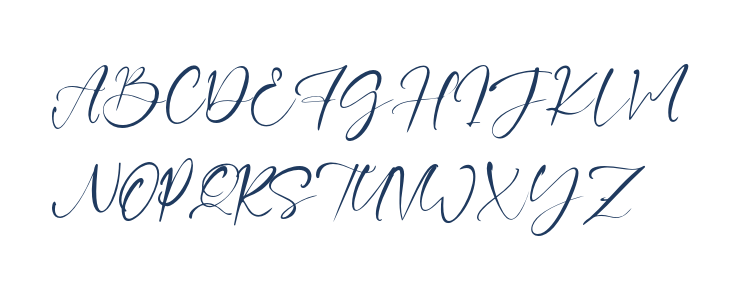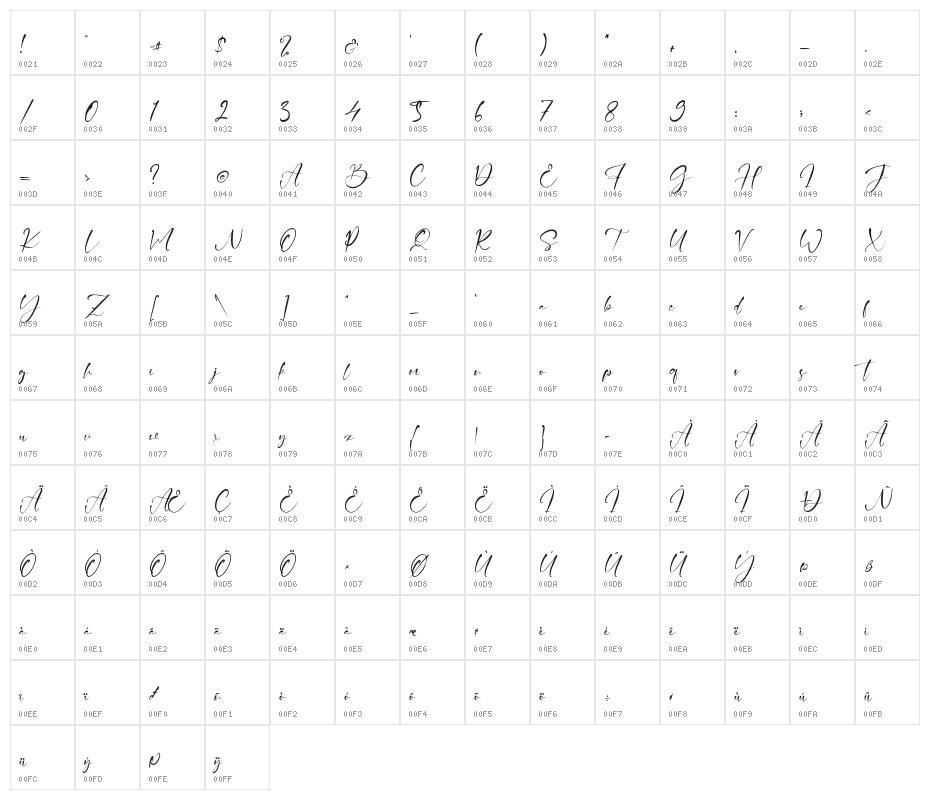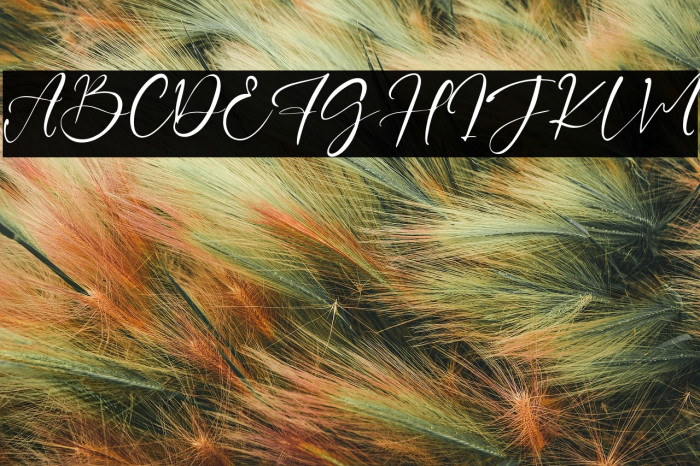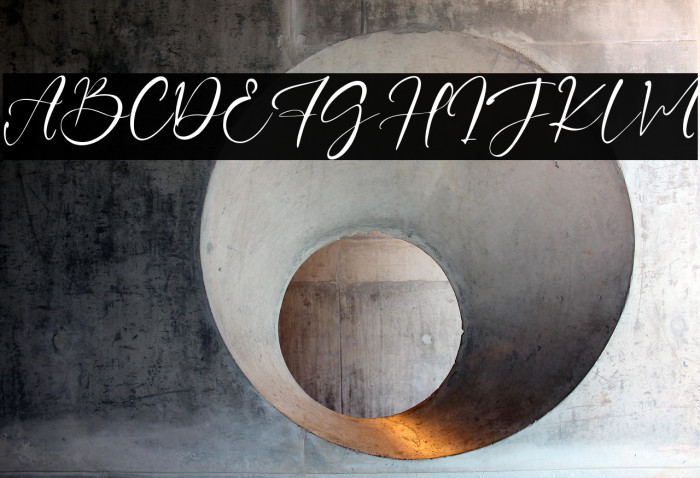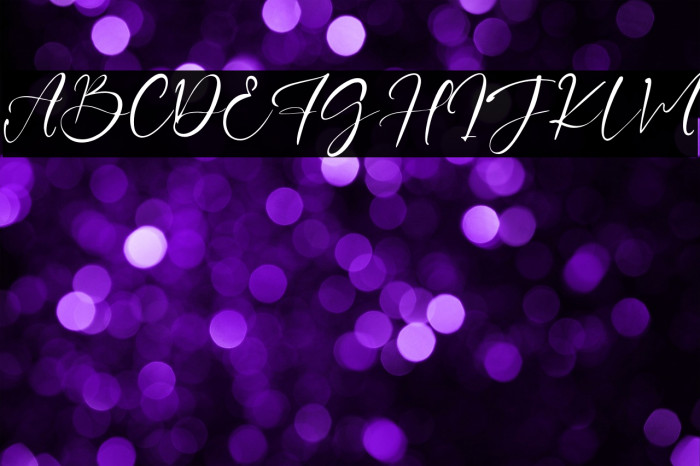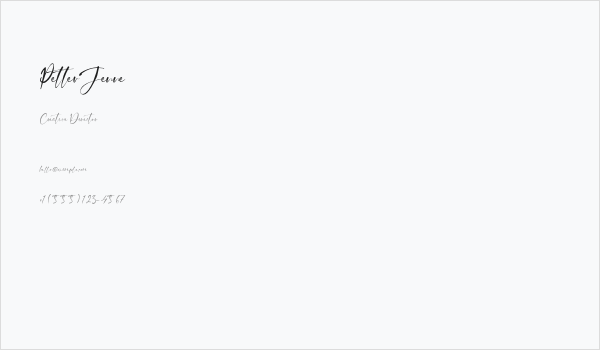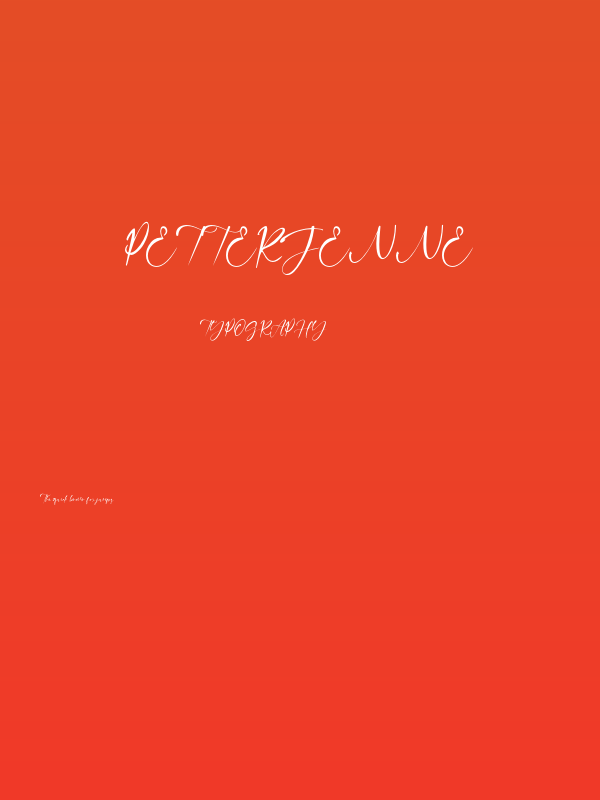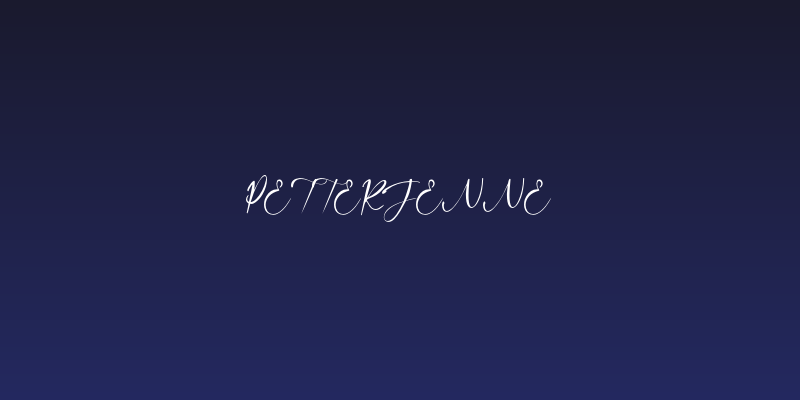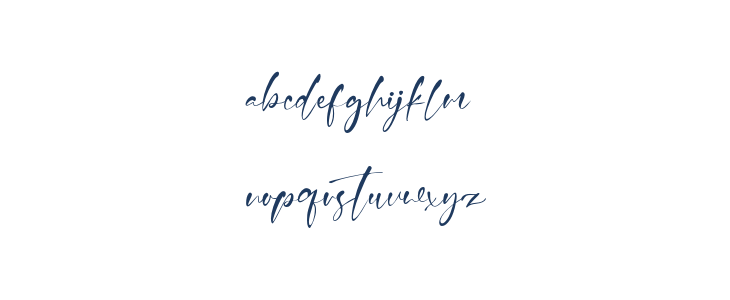
PetterJenne Font
PetterJenne Description
Elegant, flowing script font with a handwritten appearance, featuring variable stroke thickness and expressive, connected letterforms. The uppercase letters are ornate and sweeping, while the lowercase characters are more compact and legible. Numerals and punctuation maintain the same fluid, calligraphic style.
| Overall Style | Decorative, Elegant, Handwritten |
| Use Case | Logos, Headlines, Invitations, Decorative text |
| Proposed Projects | Wedding invitations, greeting cards, branding, social media graphics, personal signatures. |